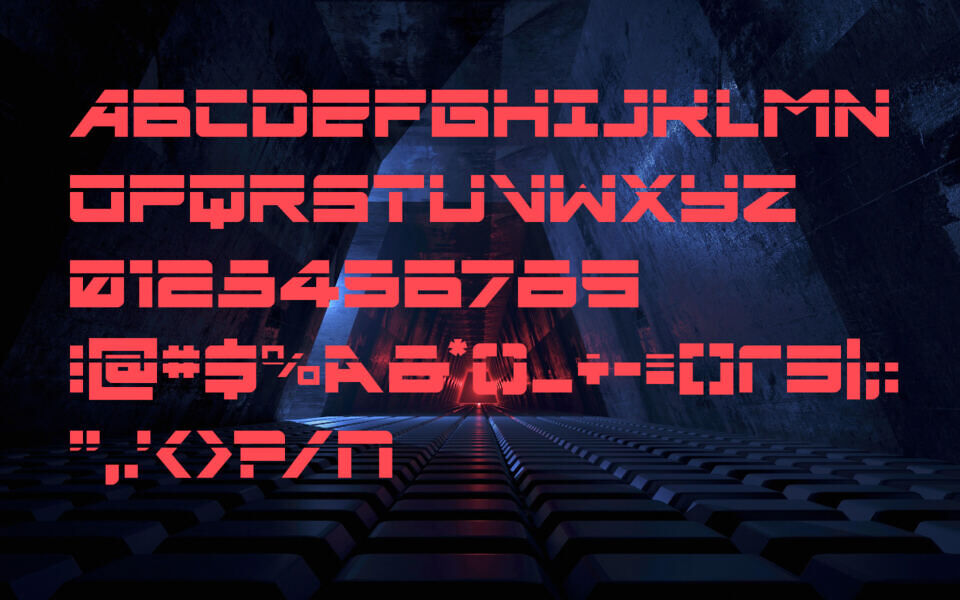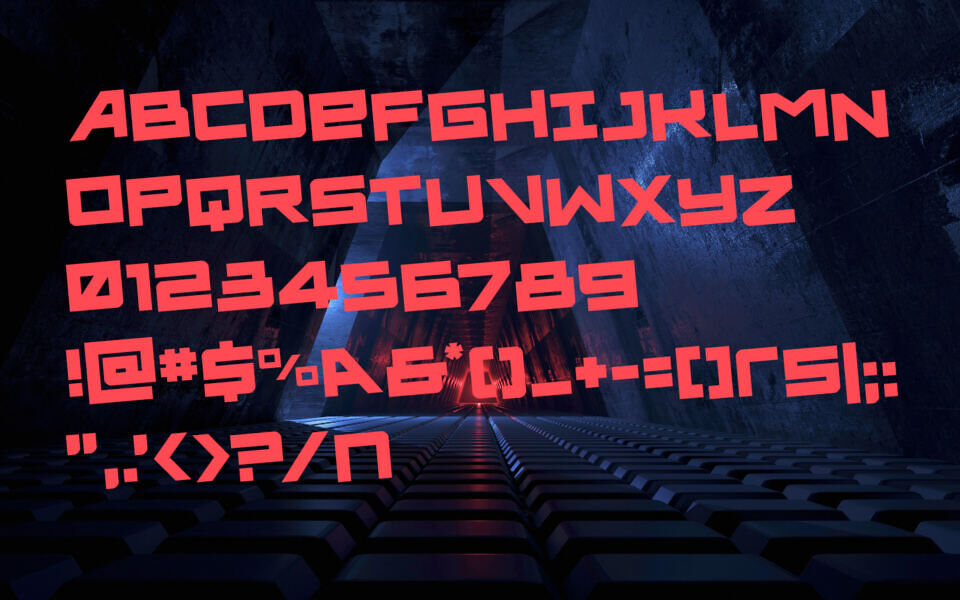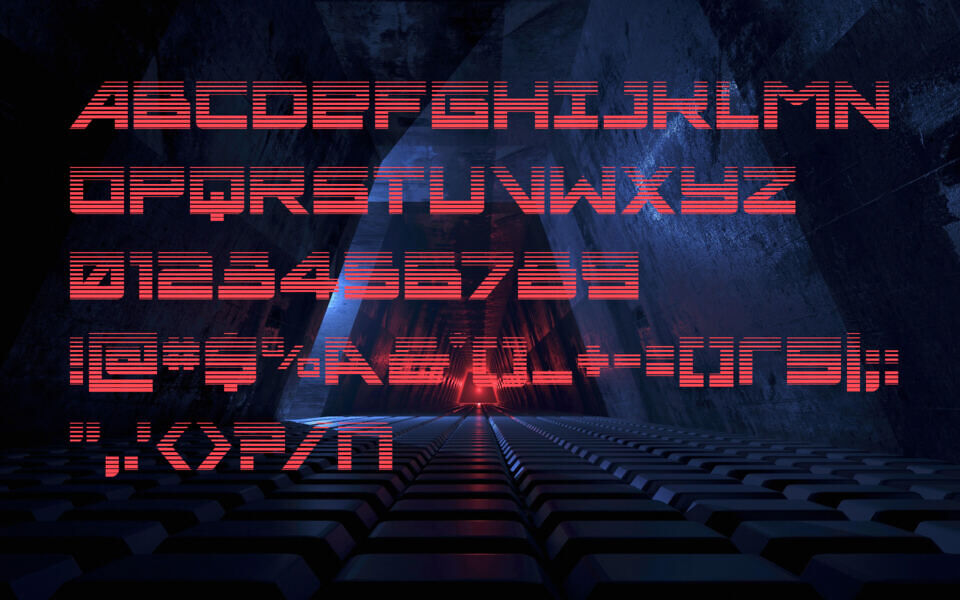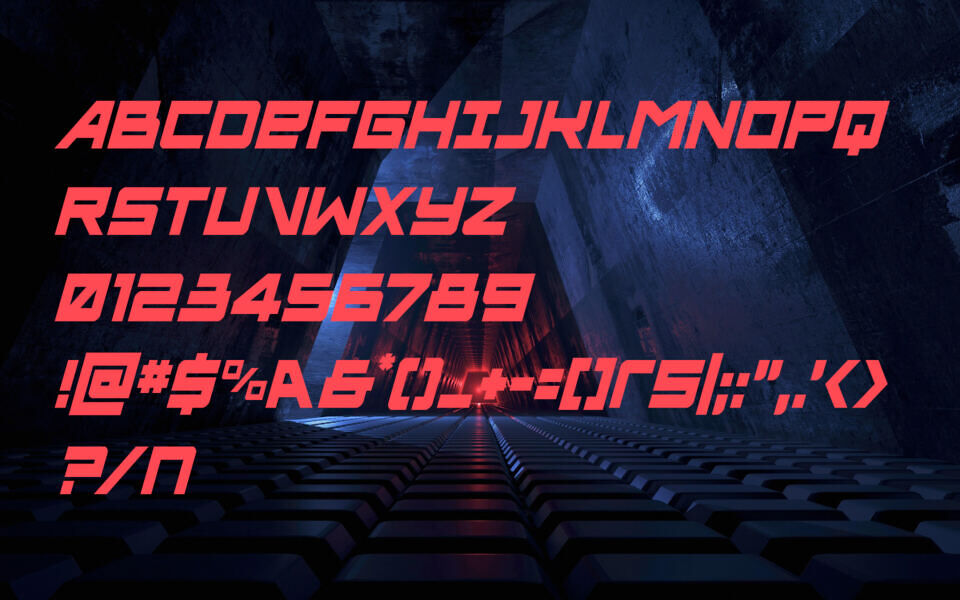
Ace Of Swords Font
Ignite your designs with Ace of Swords Font, a bold angular typeface from Iconian Fonts. This Marvel-inspired gem boasts 26 versatile styles—like 3D, Laser, Gradient, and Rotated—for cyberpunk vibes and high-tech flair.
Over 200 glyphs ensure seamless PostScript compatibility across projects, from neon logos to dystopian posters. Evoking sharp, glowing edges on dark canvases, it’s your go-to for immersive sci-fi typography.